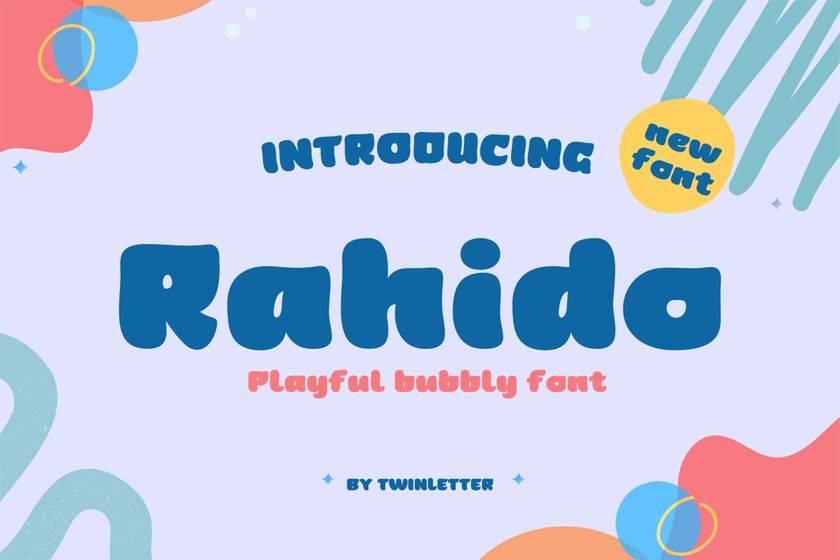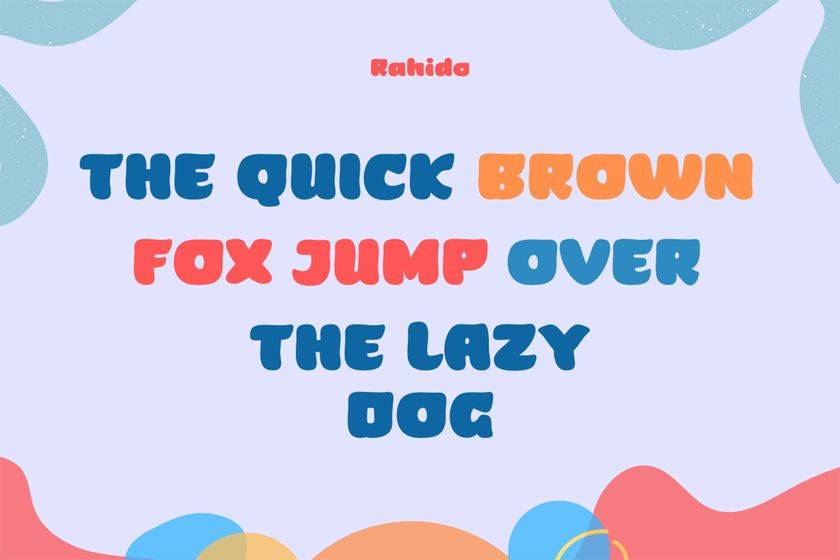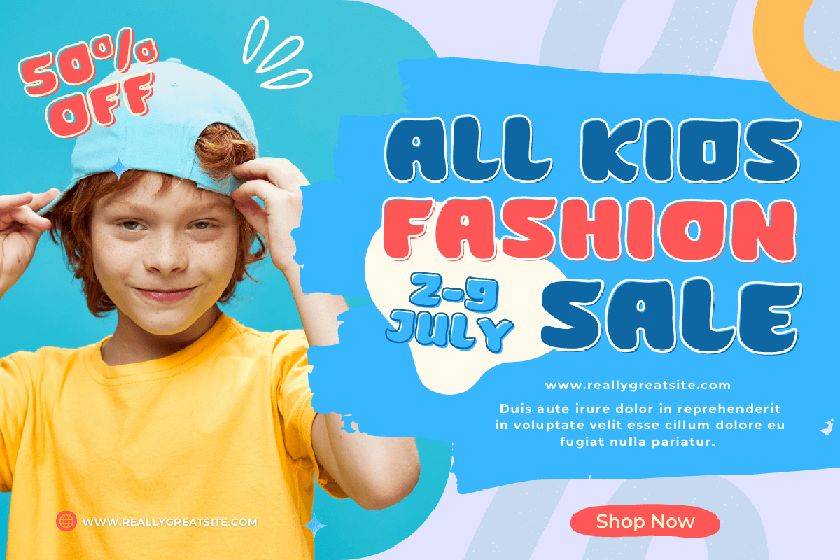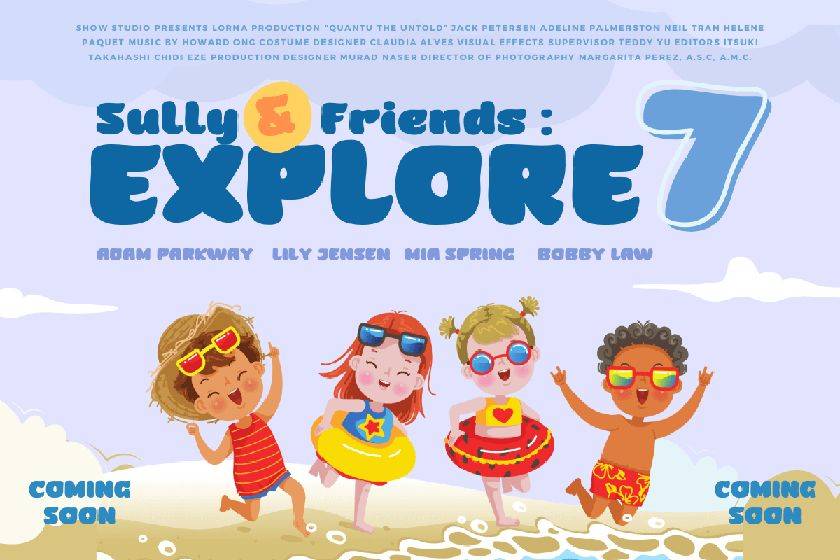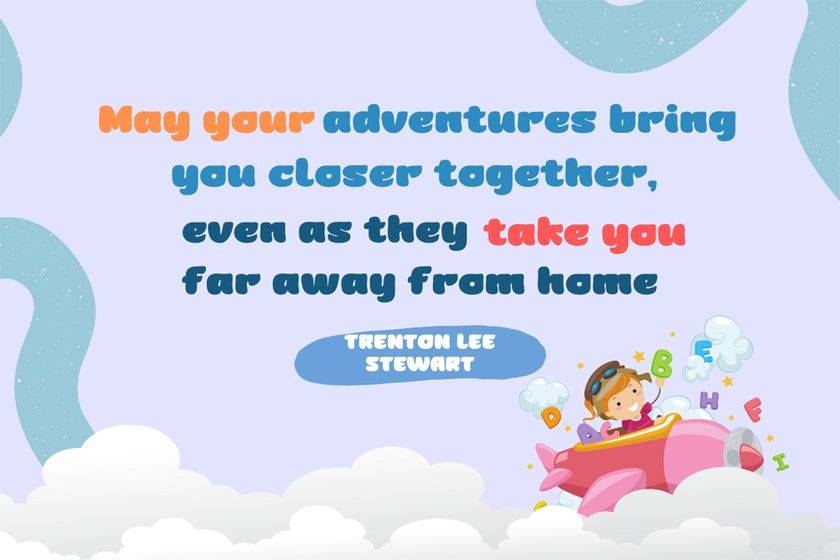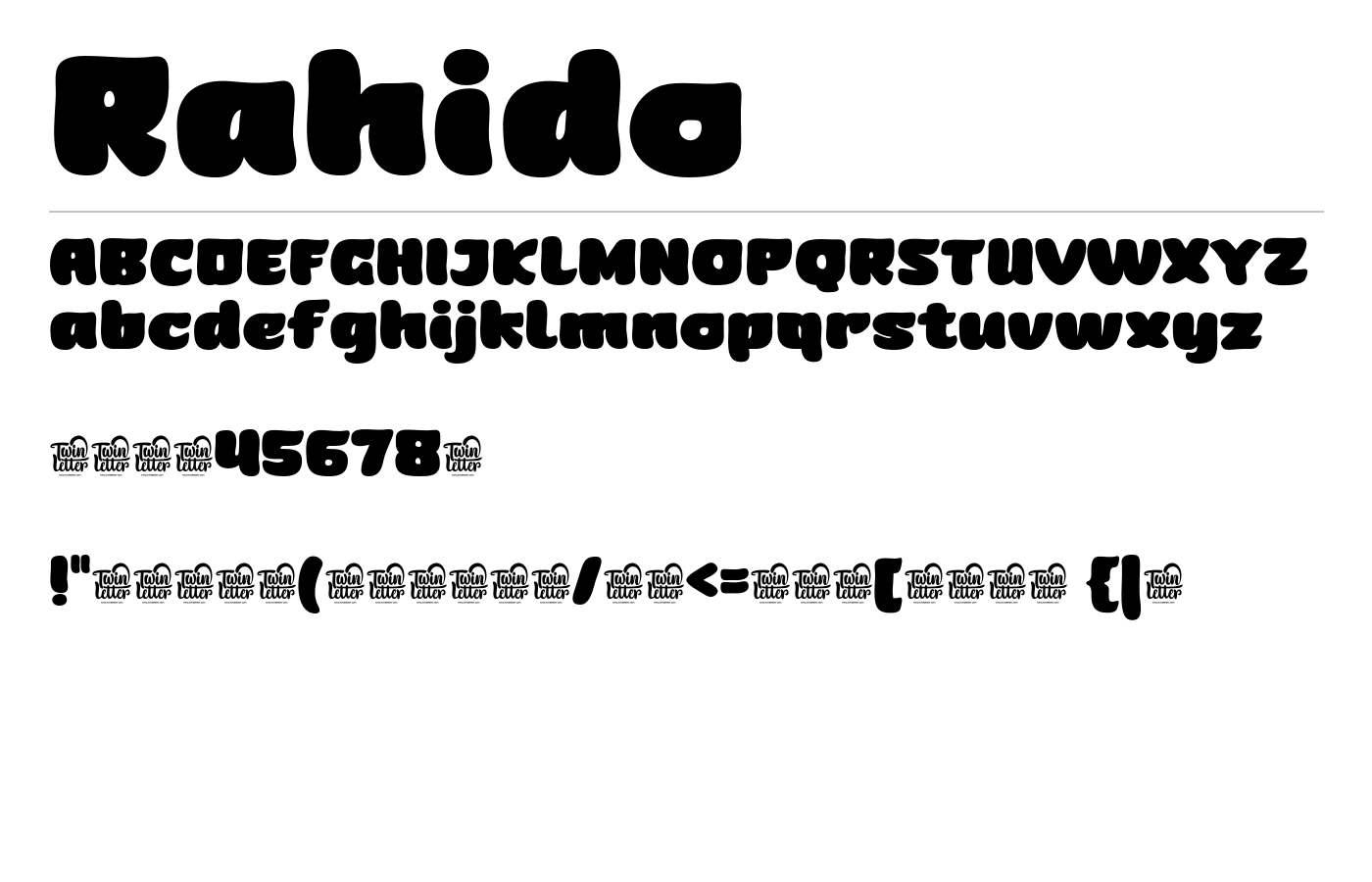
Rahido is a bold, playful sans serif font with rounded, chunky letterforms that create a friendly and approachable vibe. Its heavy weight and tight spacing give it strong visual impact, making it ideal for fun, casual branding, headlines, and eye-catching posters. This font works well where a cheerful and informal personality is desired.
Rahido Font
About Rahido Font